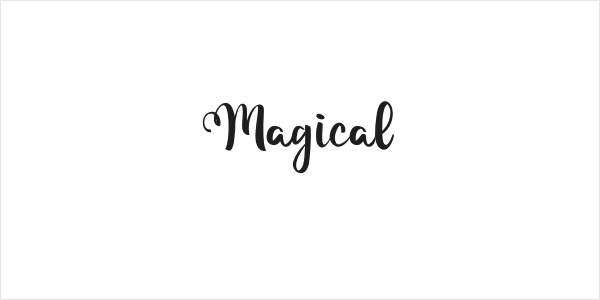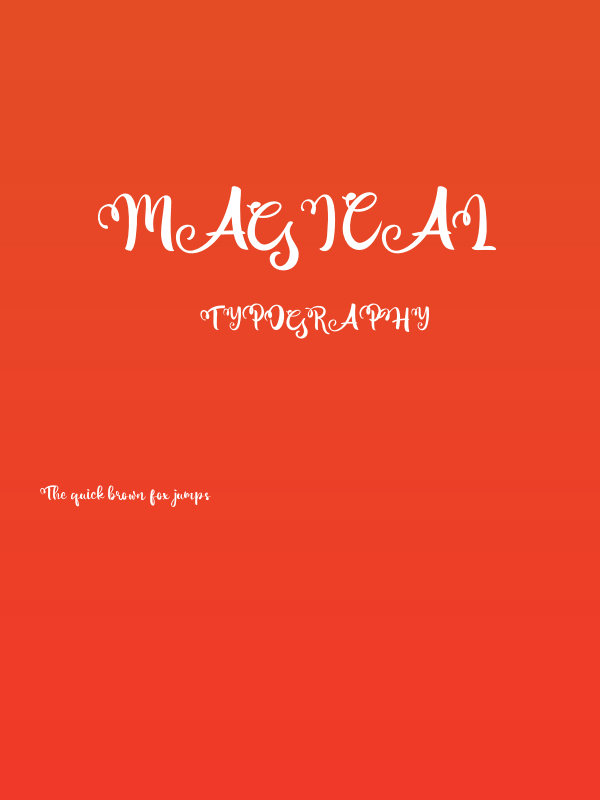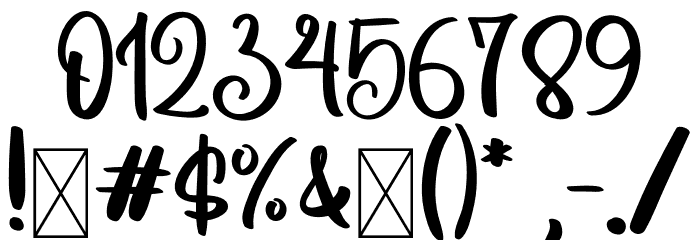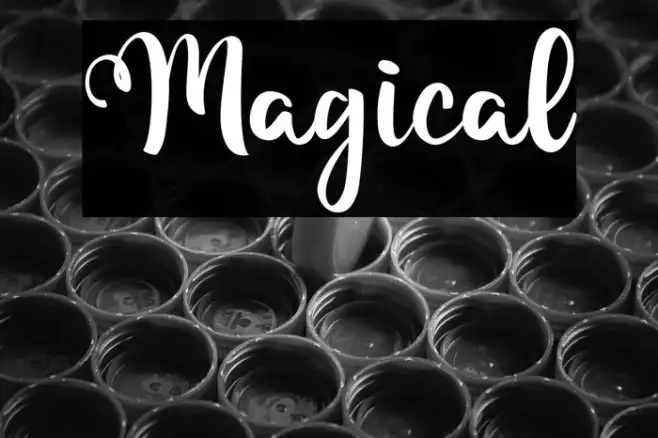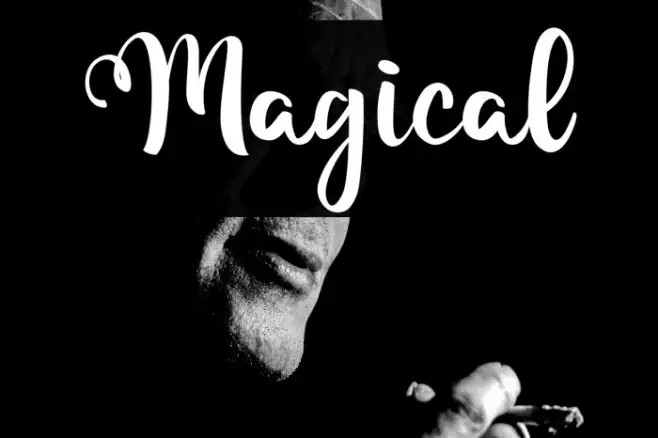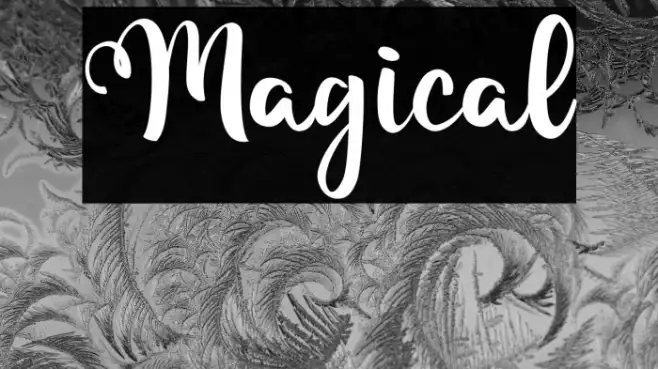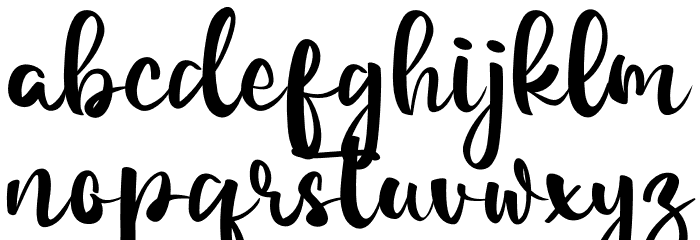
Magical Font
Magical Description
This font exudes a whimsical and playful charm, characterized by its flowing, cursive style with elegant loops and swirls. The uppercase letters are bold and decorative, featuring intricate flourishes that add a touch of sophistication. The lowercase letters maintain a consistent style, with smooth, rounded forms that enhance readability while retaining the font's artistic flair. The numerals are equally expressive, with a dynamic, hand-drawn appearance that complements the overall aesthetic. Special characters are thoughtfully designed, integrating seamlessly with the rest of the font. This font's unique style makes it ideal for creative projects that require a touch of magic and personality.
| Use Case | Logos, Invitations, Artistic Projects |
| Proposed Projects | Perfect for wedding invitations, greeting cards, branding, and artistic posters. |